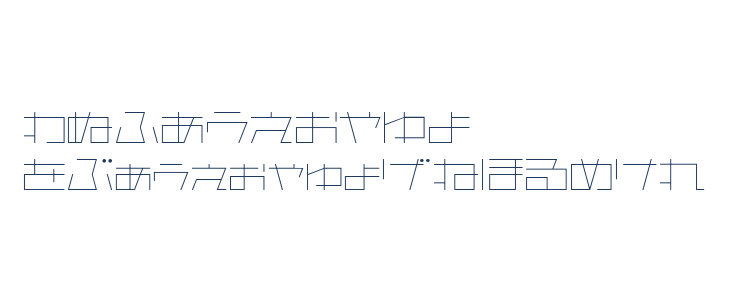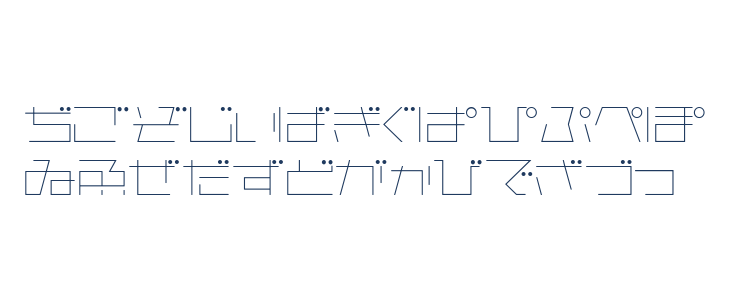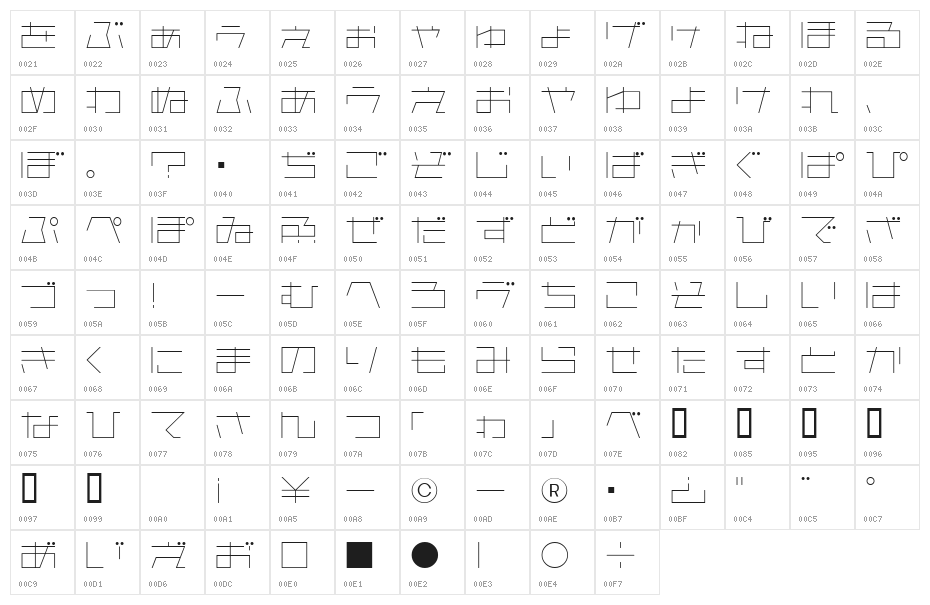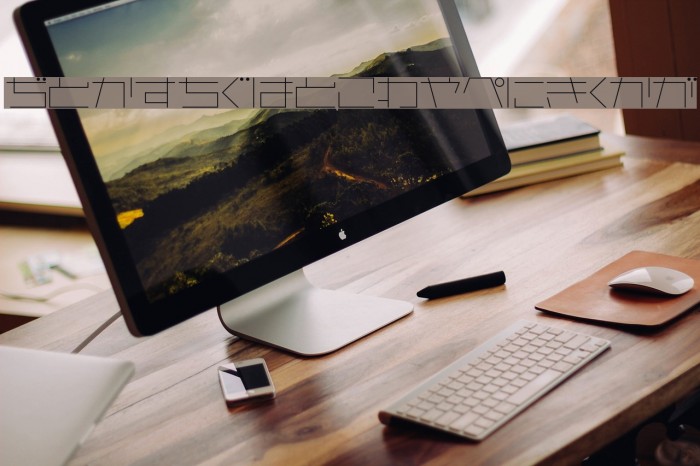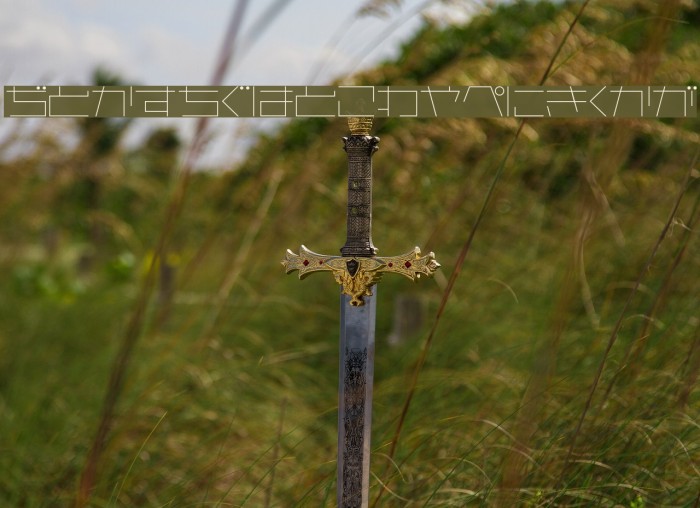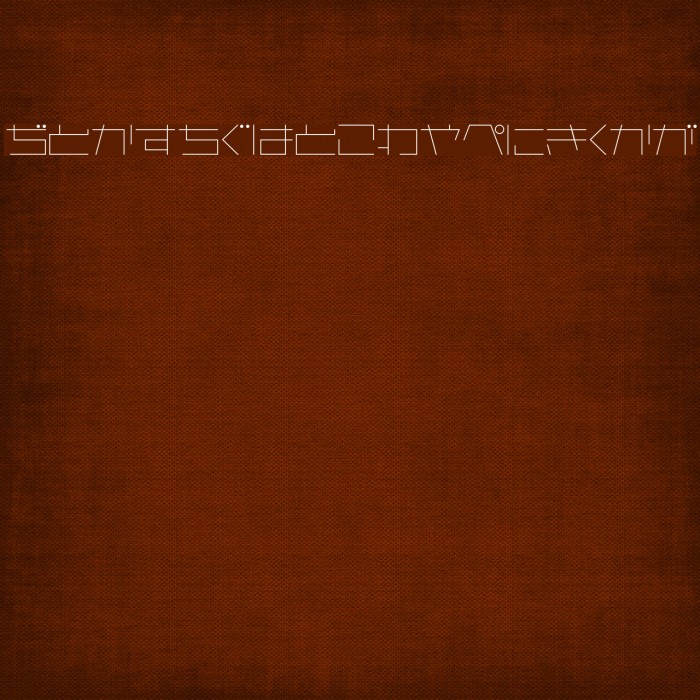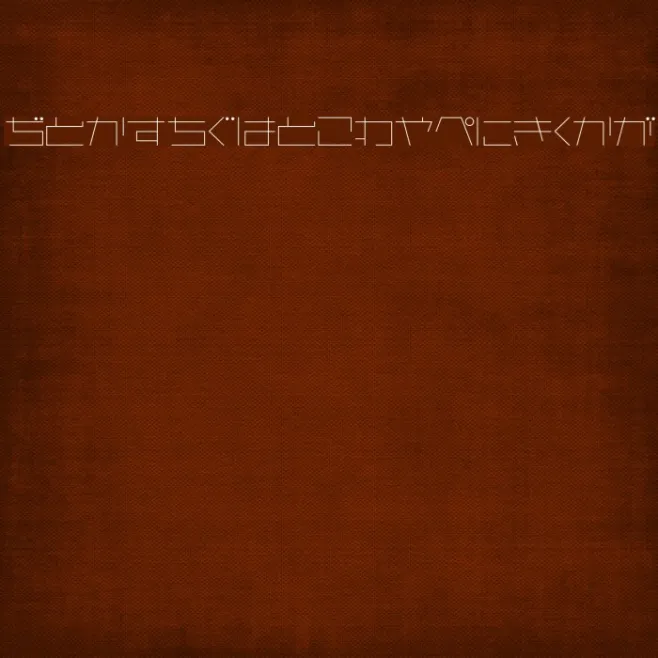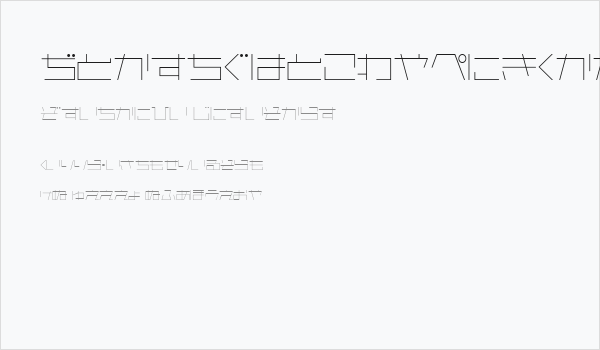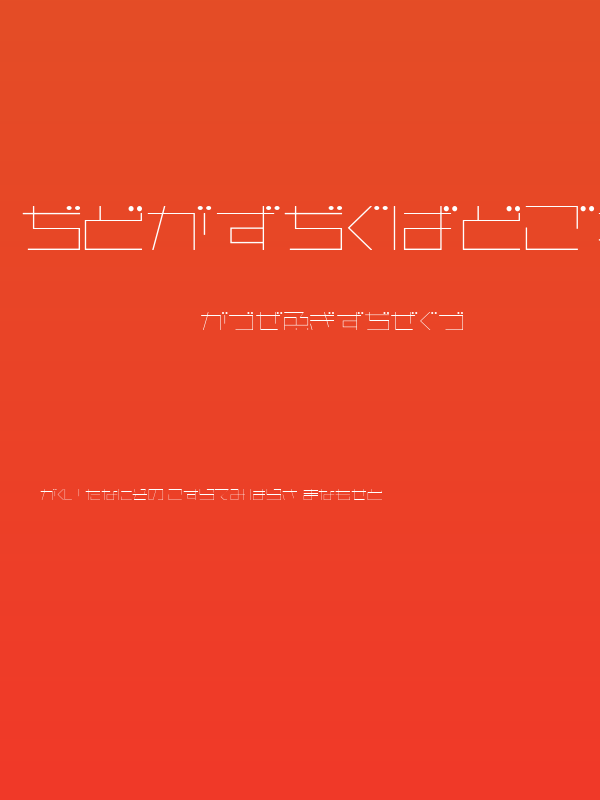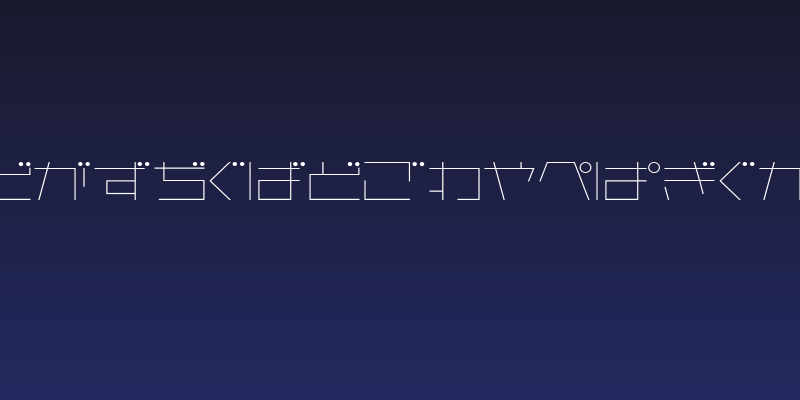
AstraHfsb07LightT Font
AstraHfsb07LightT Description
This font features a geometric and minimalist design, characterized by its use of straight lines and sharp angles. The characters are constructed with a consistent line weight, giving it a uniform appearance. The absence of curves and the presence of right angles create a futuristic and technical aesthetic. This style is reminiscent of digital or electronic displays, making it suitable for modern and tech-oriented applications. The spacing between characters is balanced, providing clarity and readability despite its unconventional form. The overall look is clean and precise, ideal for projects that require a contemporary and innovative touch.
| Use Case | Logos, Headlines, Digital interfaces |
| Proposed Projects | Ideal for tech branding, digital interfaces, modern art installations, and futuristic-themed designs. |